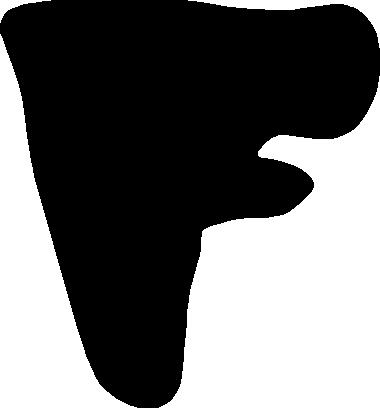
In search of type of font style.....
I am needing a font that is wide on top and narrows down to the bottom. Also I think it has rounded edges. I can not remember the name of him back in day but its like his style. Yeah I know that helps out... In any event I used the pencil tool in Flexi and drew somewhat of an example of what I am after. Would perfer free fonts but if not that is fine as well.